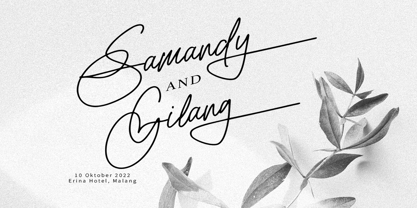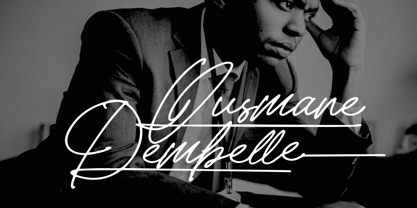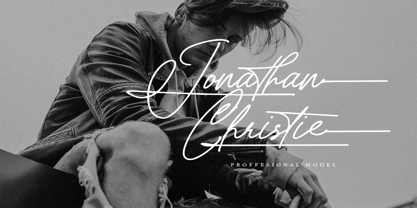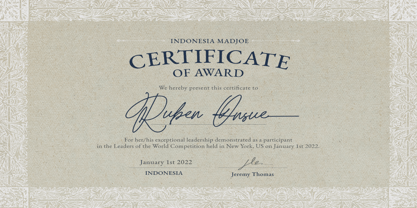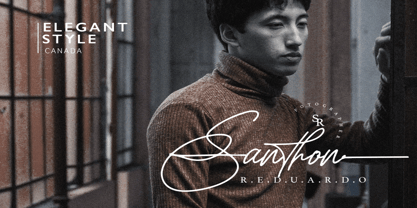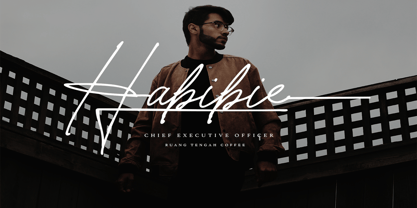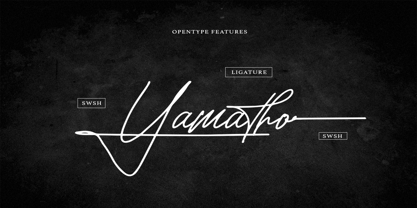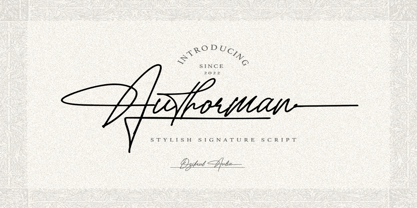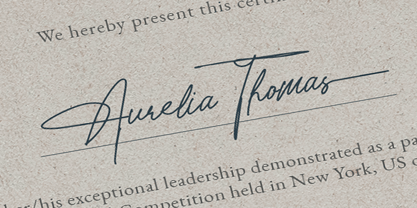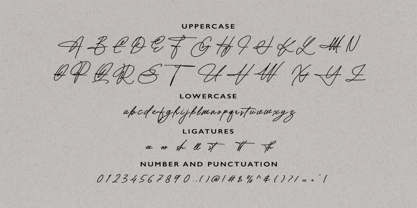
Authorman
por Bale Type
La familia tipográfica Authorman fue diseñada por Sarid Ezra, Dzikrul Aulia y publicada por Bale Type. Authorman contiene 1 estilos.
Authorman is a stylish signature script that you can use for any project such as for your own customized logo design, branding, or even your personal signature. The interesting part is, this font also contains an swash and long terminal alternates that you can access at opentype features in Adobe. This font is also support multi language.
Diseñadores: Sarid Ezra, Dzikrul Aulia
Editorial: Bale Type
Fundición: Bale Type
Propietario del diseño: Bale Type